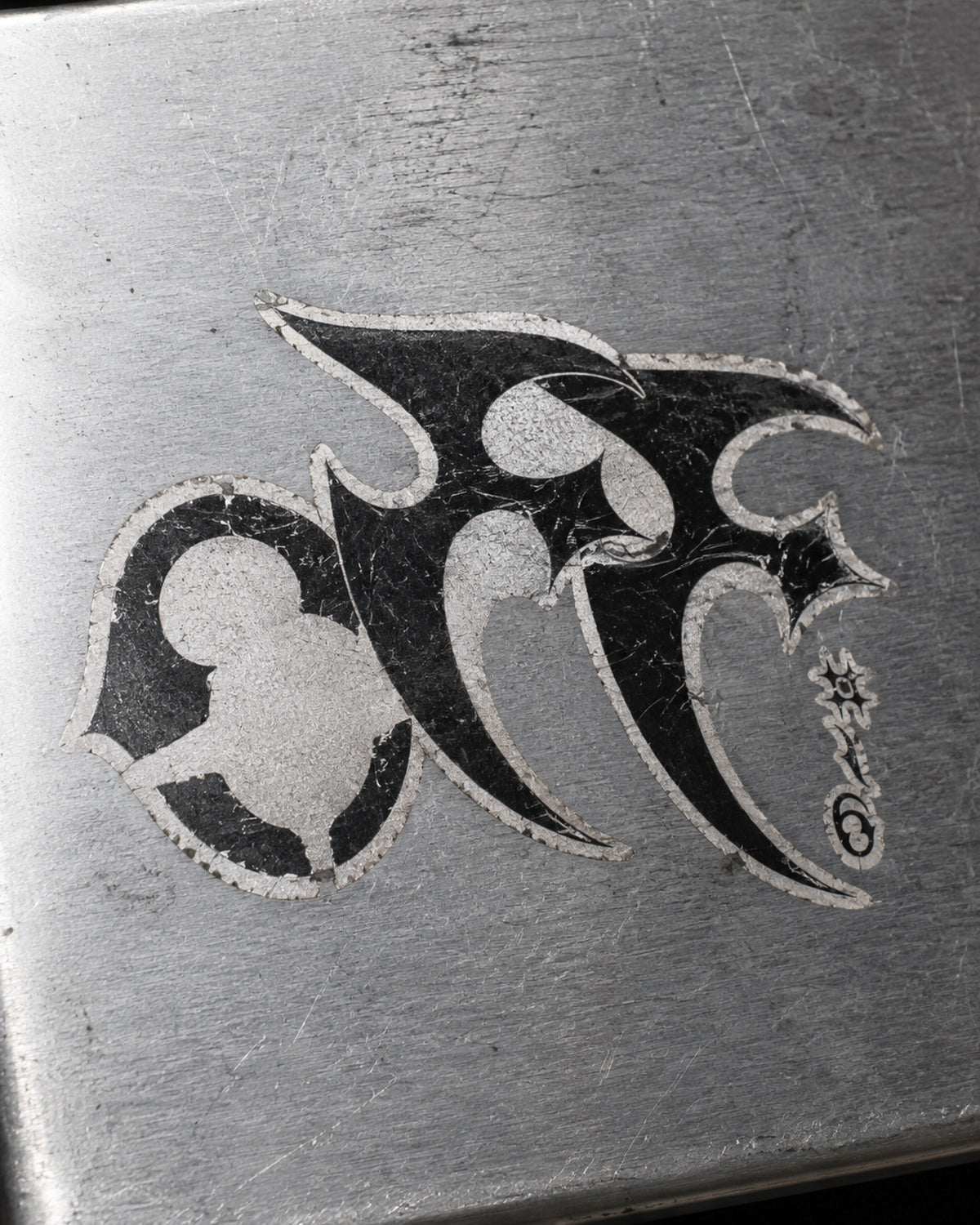
including ItalicsThe quick brown fox jumps over the lazy dog.AaBbCcDdEeFfGgHhJjKkLlMmNnOoPp -
Model Collection
Inspired by the iconic Japanese brand Tamiya.72 styles + Variable Cut
Including Italics & JapaneseThe quick brown fox jumps over the lazy dog.AaBbCcDdEeFfGgHhJjKkLlMmNnOoPp
Extraterrestrial forms, organic rhythms,
and spikes, lots of spikes!